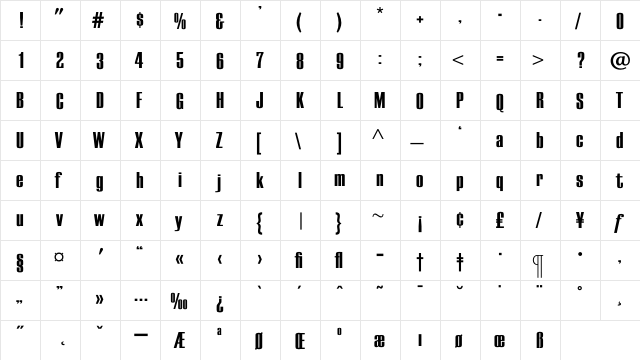
EuropaGrotesqueExtraBold Regular
Design Context for EuropaGrotesqueExtraBold Typeface
EuropaGrotesqueExtraBold is a composed and adaptable typeface that performs quietly and consistently across a wide range of design contexts. The heavy weight commands attention and anchors typographic hierarchies.